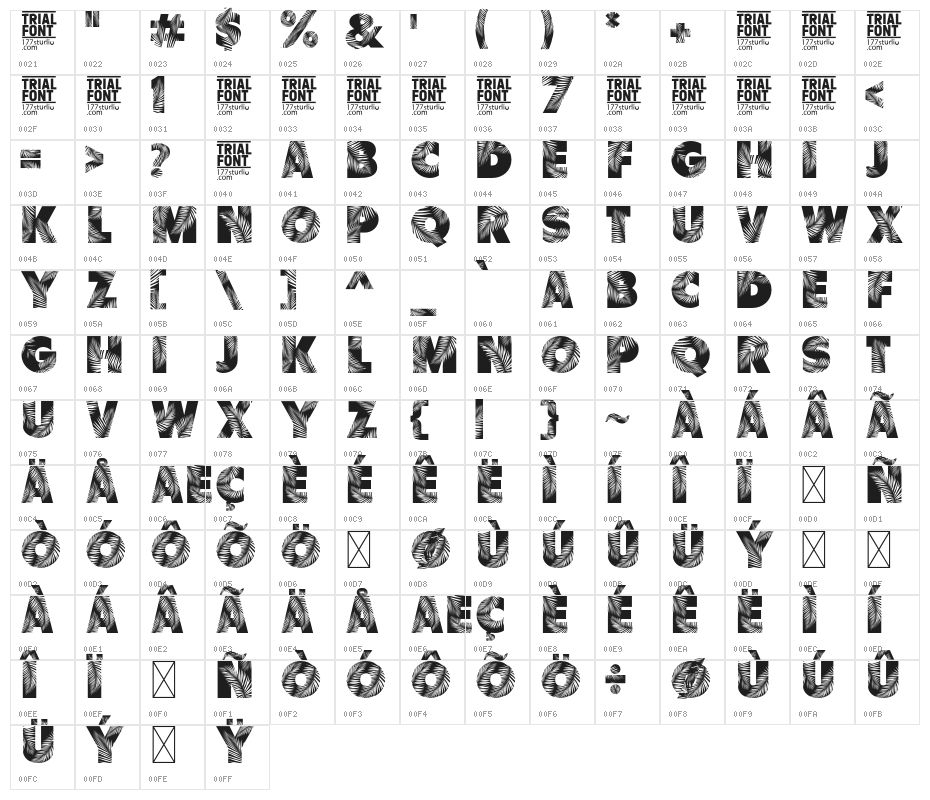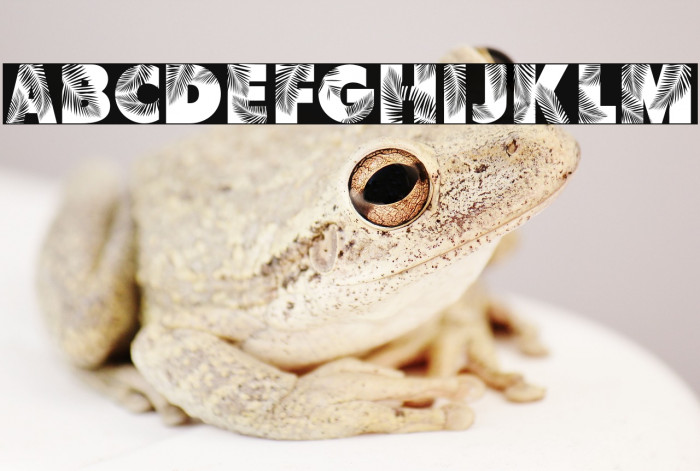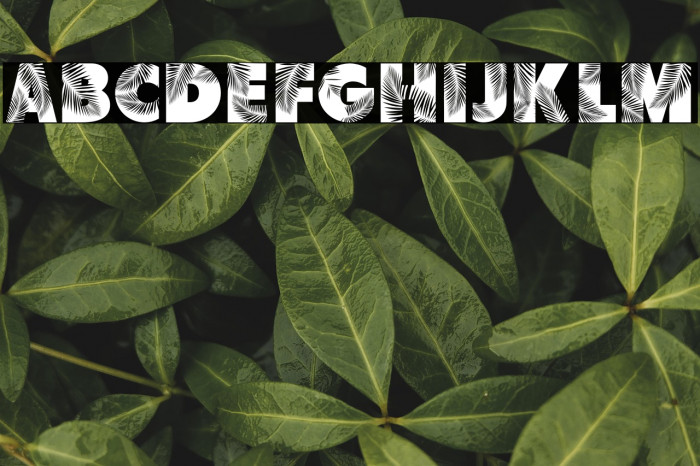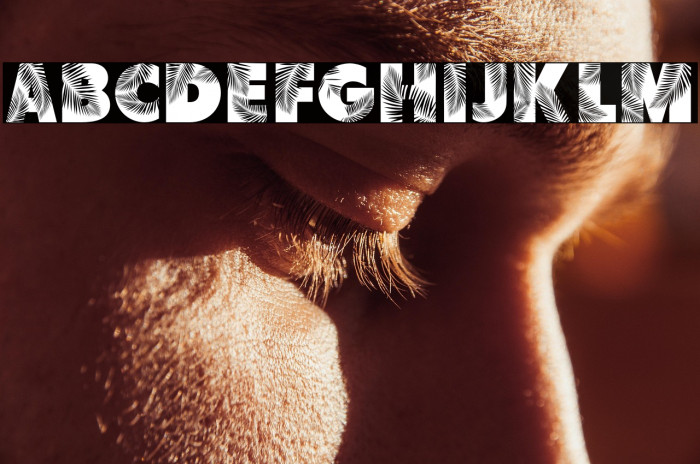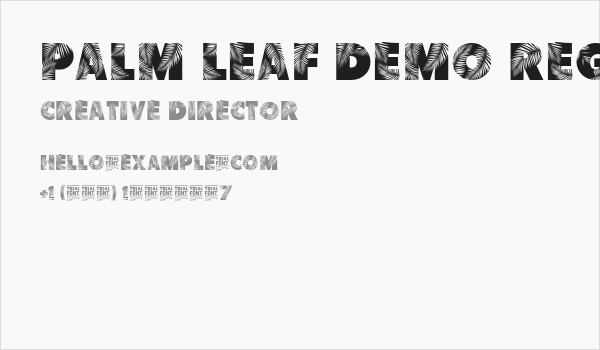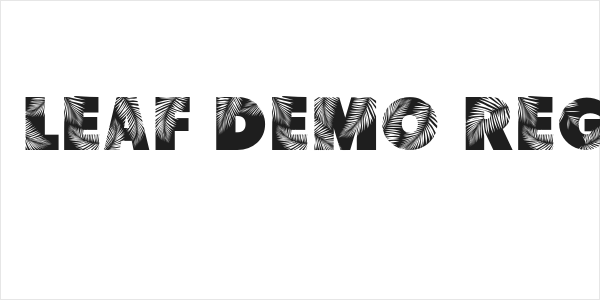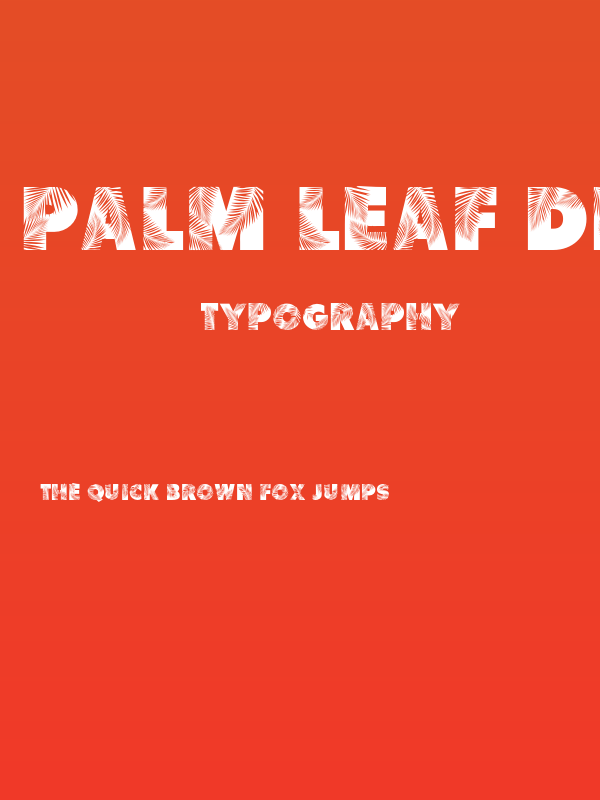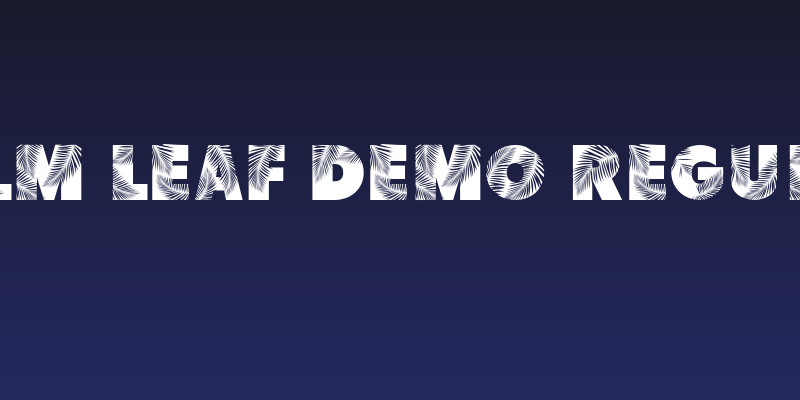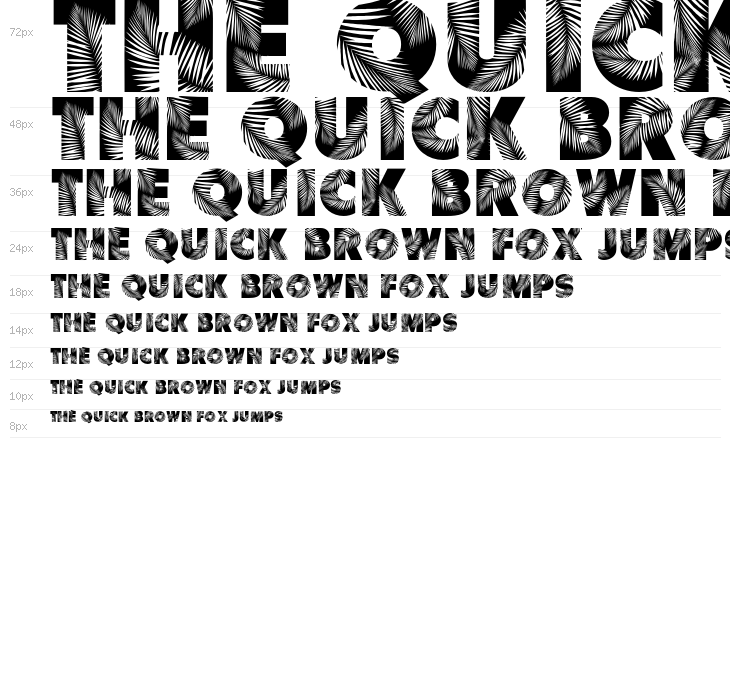
Palm Leaf Demo Regular Font
Palm Leaf Demo Regular Description
This font features a bold and decorative style with intricate palm leaf patterns embedded within each character. The design is highly detailed, creating a textured appearance that evokes a tropical or natural theme. The uppercase letters are prominent and eye-catching, making them suitable for display purposes. The characters are uniformly wide, with consistent spacing that maintains readability despite the complex internal design. The font's unique aesthetic makes it ideal for projects that require a distinctive and thematic look.
| Proposed Projects | Ideal for tropical-themed posters, event invitations, branding for eco-friendly products, or any project needing a unique, nature-inspired aesthetic. |